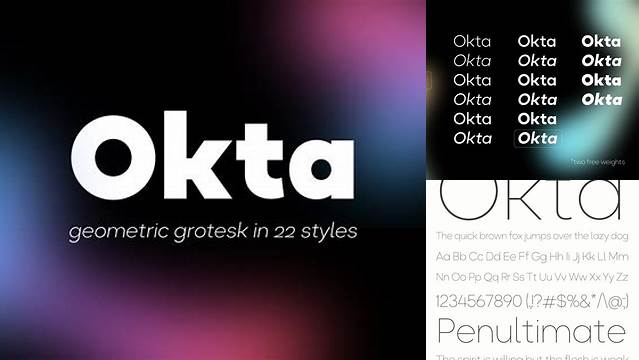
Okta Round Font: Free Download Guide
1. Understanding the Okta Round Font
Before we jump into the download details, let's talk about what makes the Okta round font so special. This font family is known for its clean lines, rounded terminals, and overall modern aesthetic. It's a versatile choice, making it suitable for a wide range of design applications, from website headings to marketing materials. The rounded edges give it a friendly and approachable feel, which can be a great asset in branding and user interface design. Think about how a font can impact the entire mood of your design – the Okta round font brings a sense of calm and clarity.
The Appeal of Rounded Fonts
Rounded fonts, like the Okta variety, have a unique psychological impact. They tend to be perceived as more friendly, approachable, and modern compared to fonts with sharp edges. This makes them a fantastic choice for brands that want to convey a sense of trustworthiness and innovation. Imagine using this font on your website – it immediately gives a softer, more inviting feel, encouraging visitors to stay and explore. You guys know how important first impressions are, and the right font can make all the difference.
Design Characteristics of Okta Round Font
The Okta round font family typically includes various weights and styles, from light to bold, allowing for flexibility in your design projects. This versatility is key because you can use different weights to create visual hierarchy and emphasis. For example, a bold weight can be used for headlines, while a lighter weight is perfect for body text. This ensures readability and a balanced visual appeal. Understanding these nuances helps you leverage the font's full potential.
Using Bold for Headlines
Bold weights are perfect for headlines and titles. They grab attention and immediately signal the importance of the text. Think about it: a bold headline shouts,